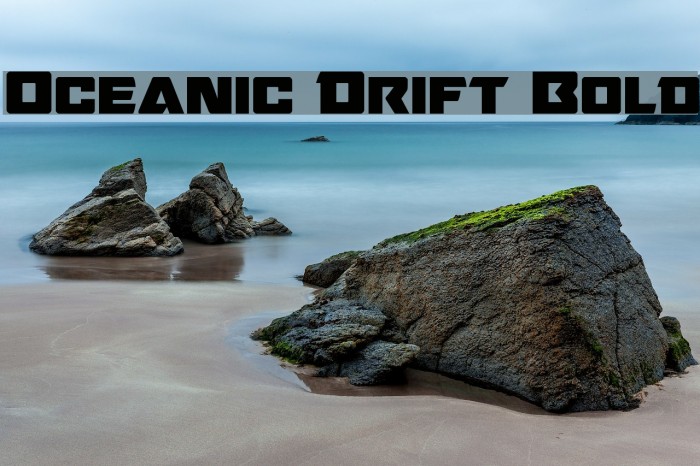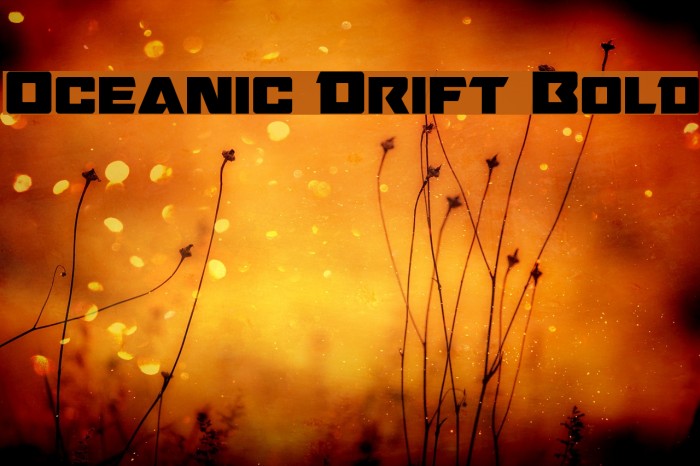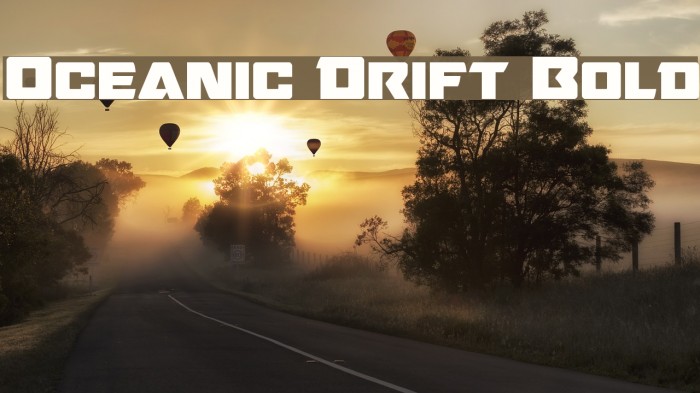
Oceanic Drift Bold Font
This font features a bold and impactful design with thick, blocky letterforms that convey strength and modernity. The characters are uniformly wide, with sharp angles and clean lines that create a sense of stability and confidence. The uppercase and lowercase letters maintain a consistent style, enhancing readability while adding a touch of assertiveness. The numerals and special characters are equally robust, ensuring a cohesive look across all text. This font is ideal for making a strong visual statement, whether in print or digital media.
A bold, blocky font with sharp angles and a modern, assertive style.
• Proposed Projects: Ideal for branding, headlines, posters, and any project requiring a strong visual impact.